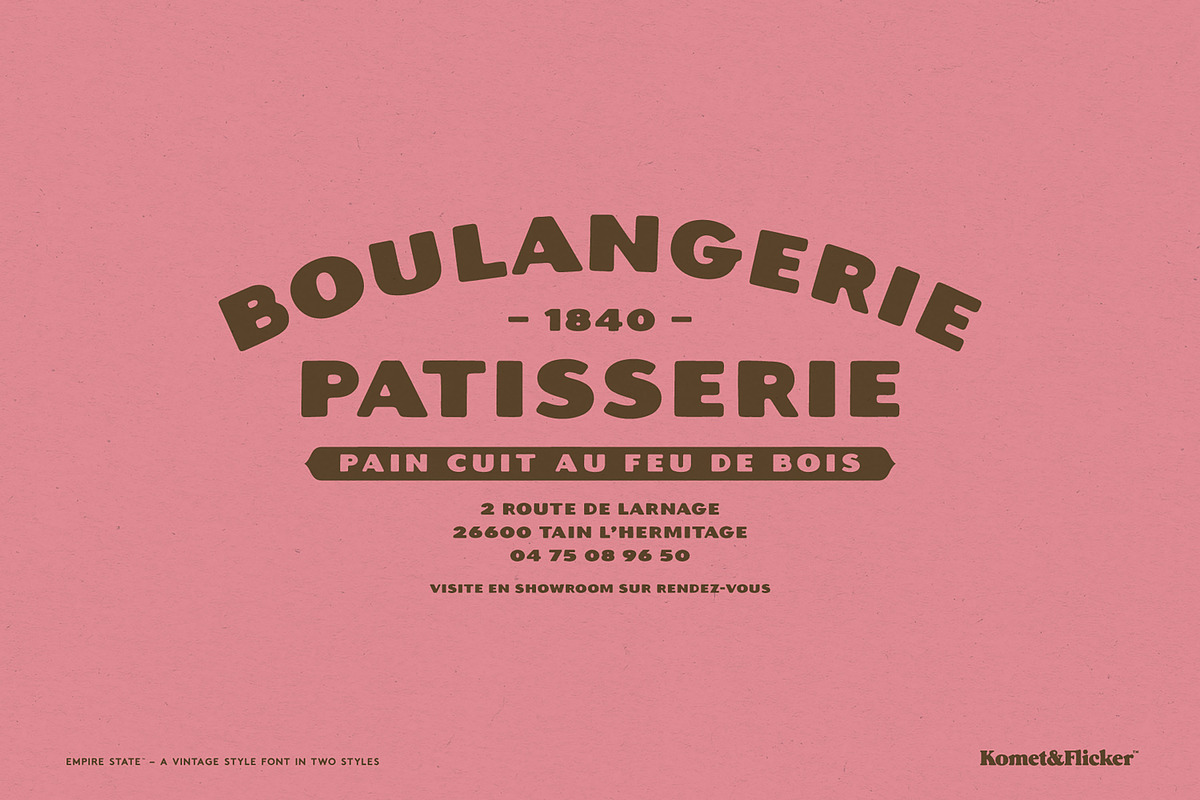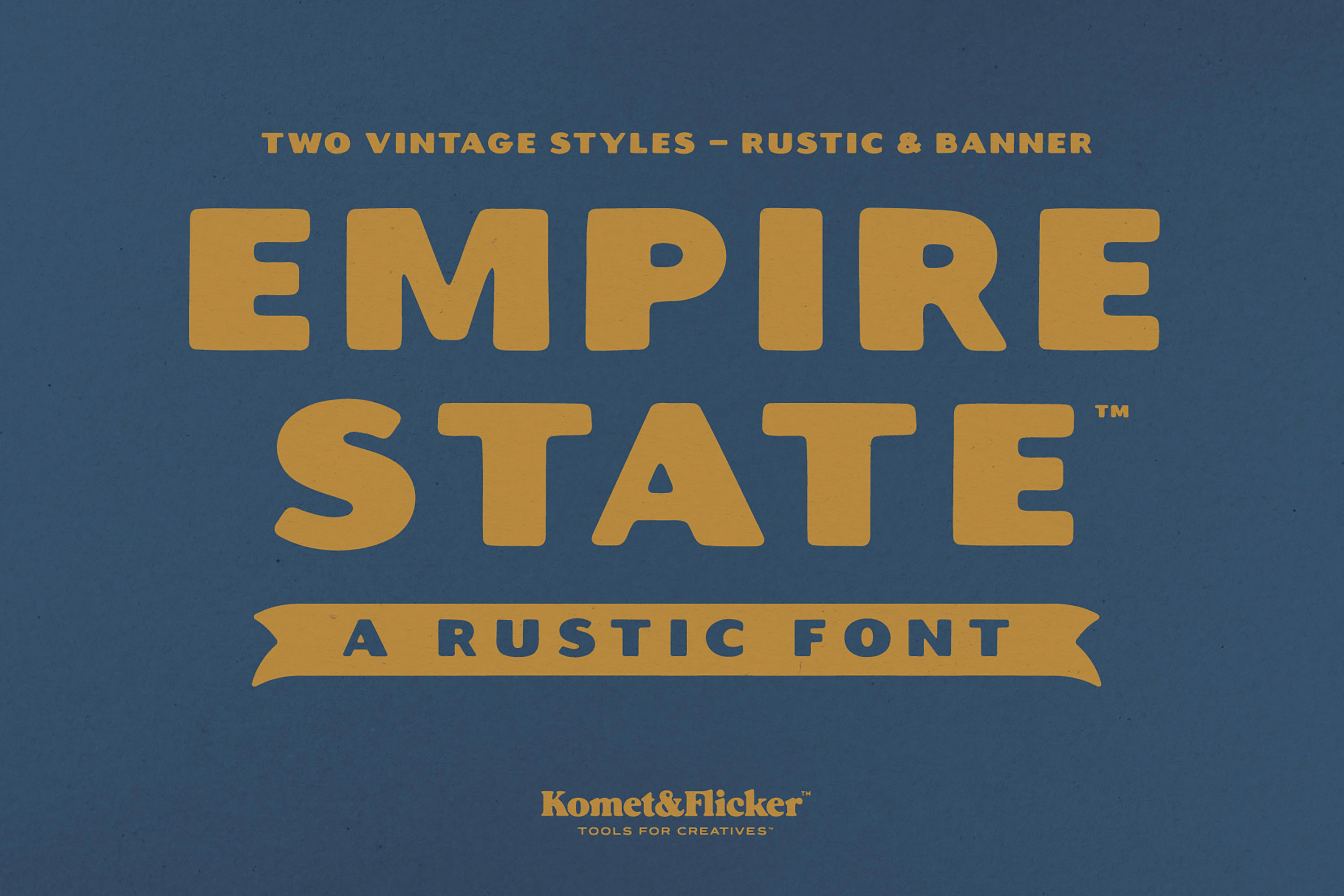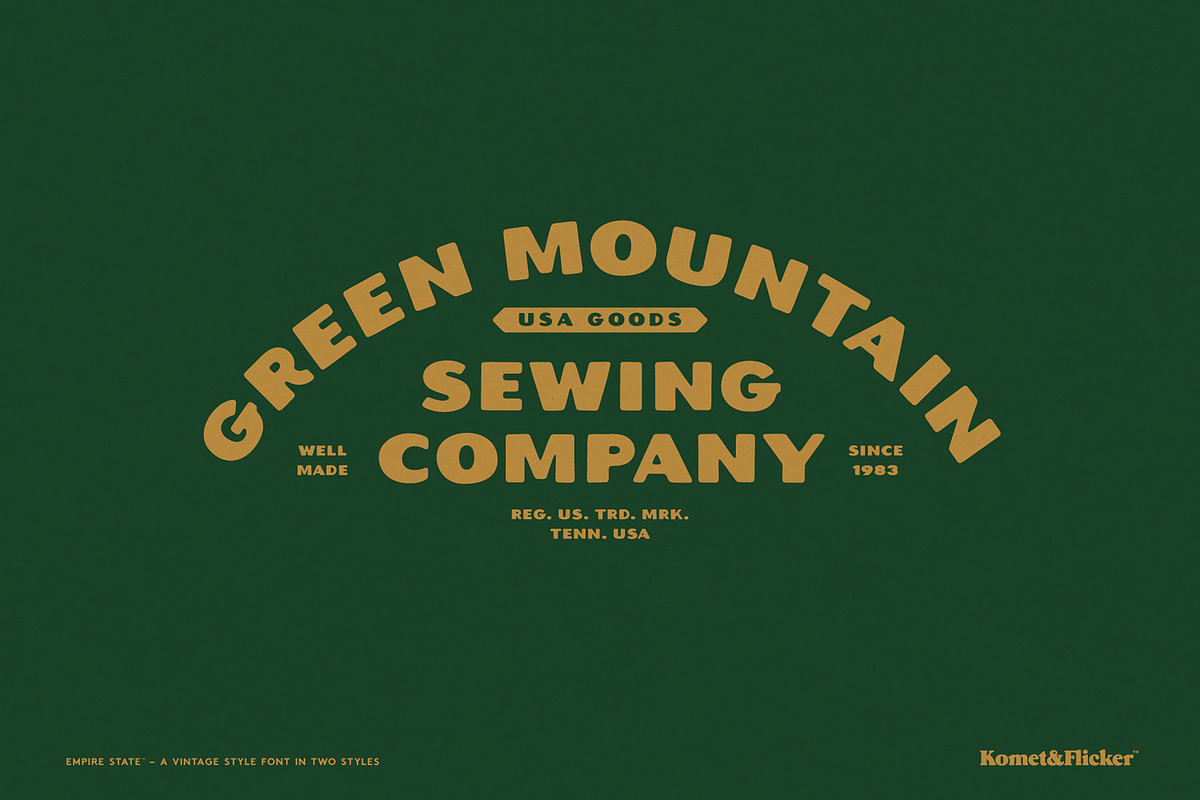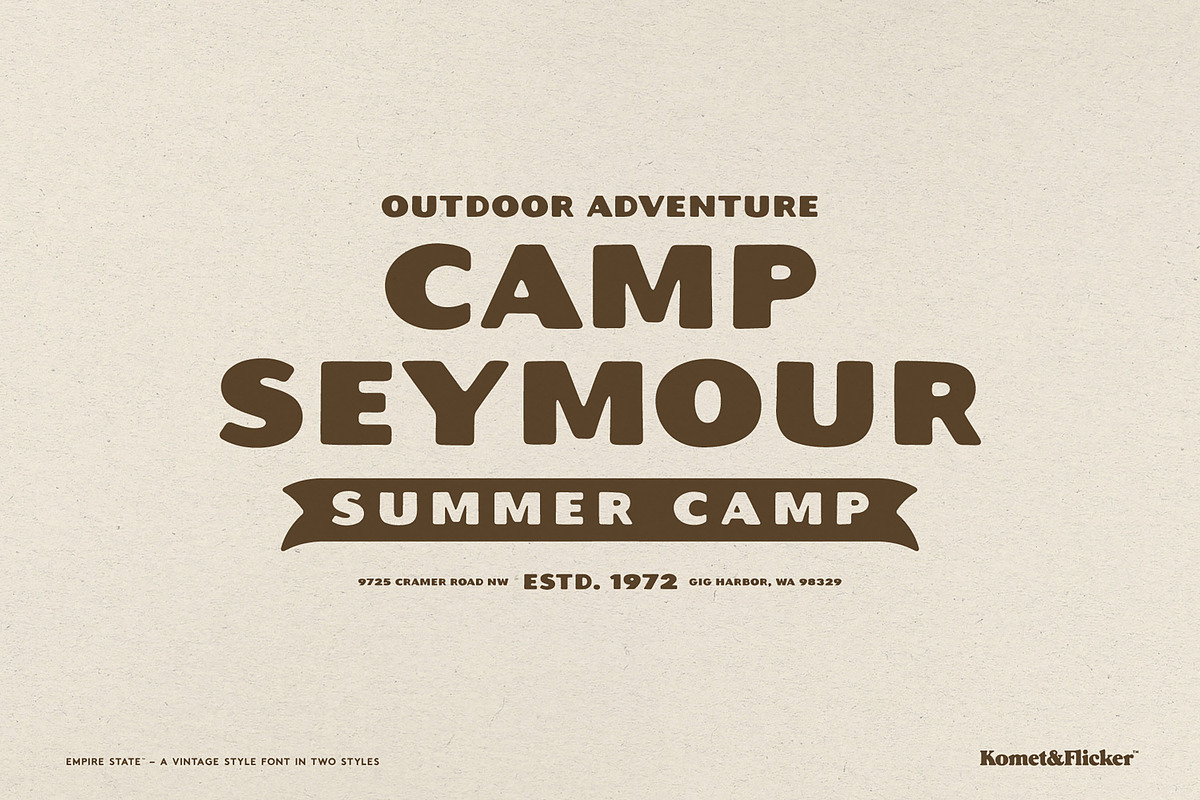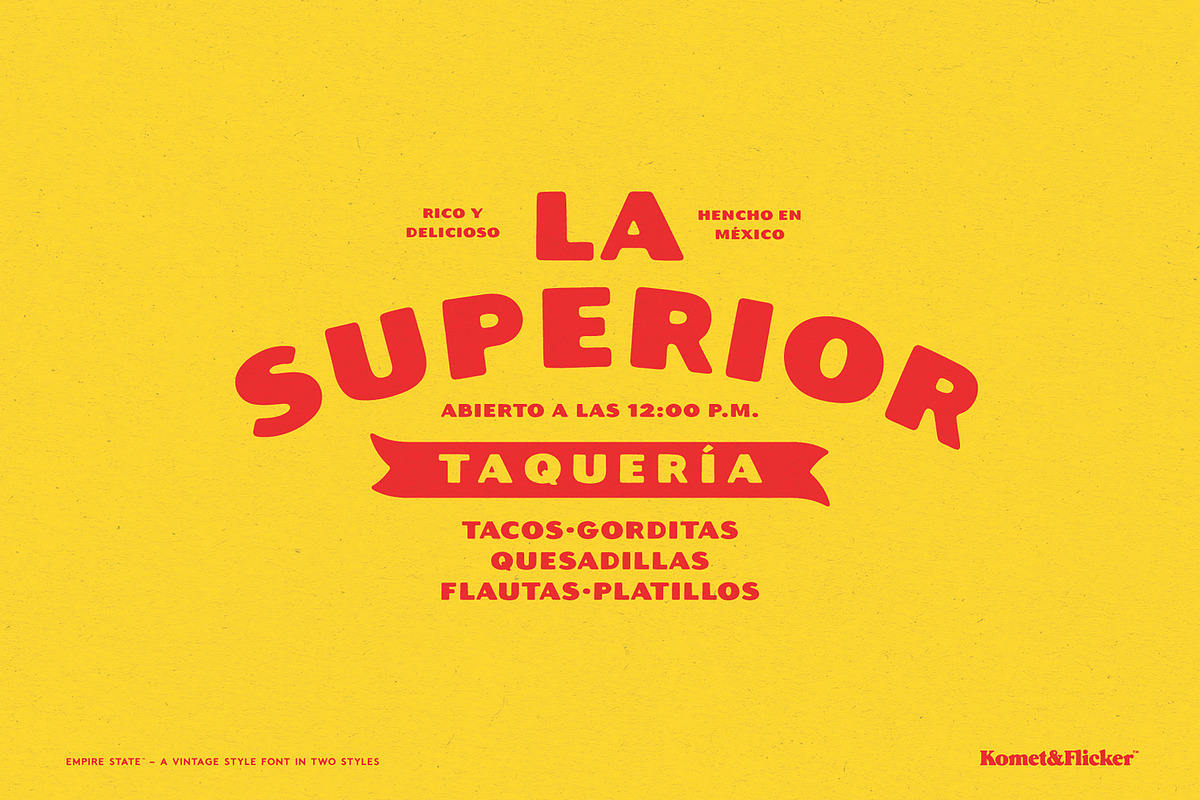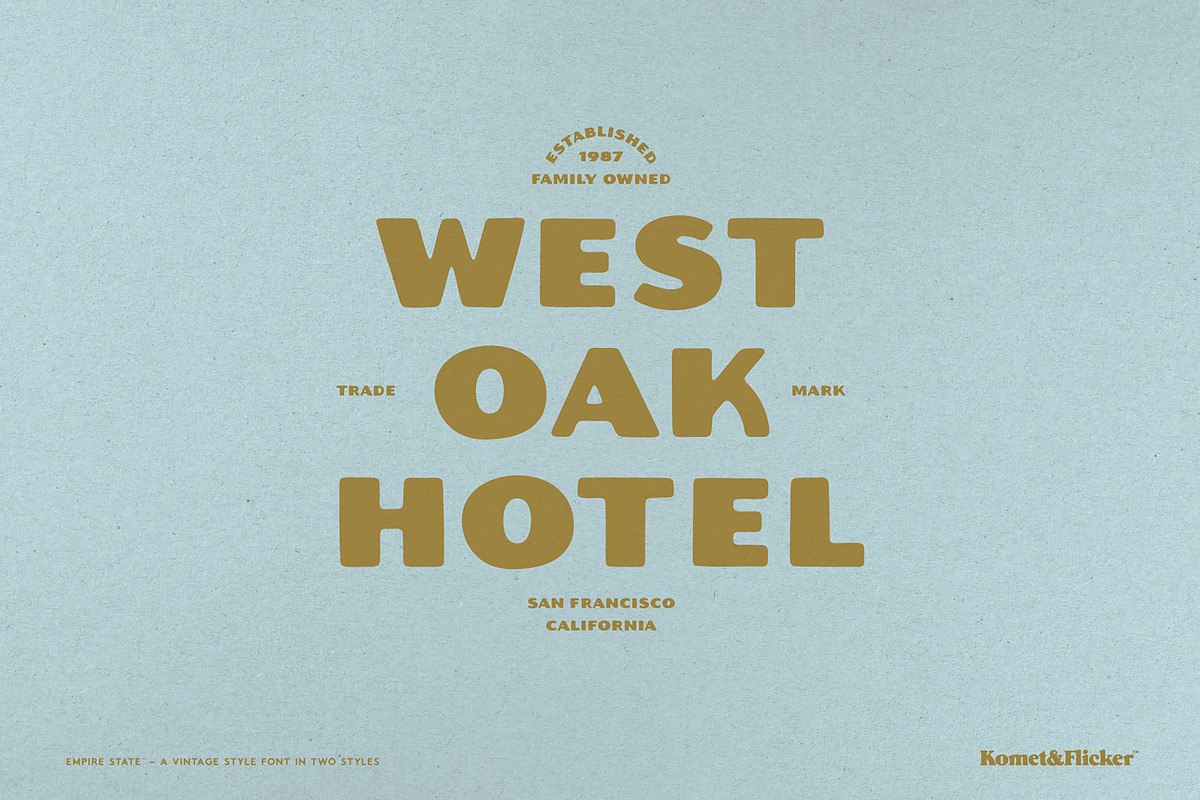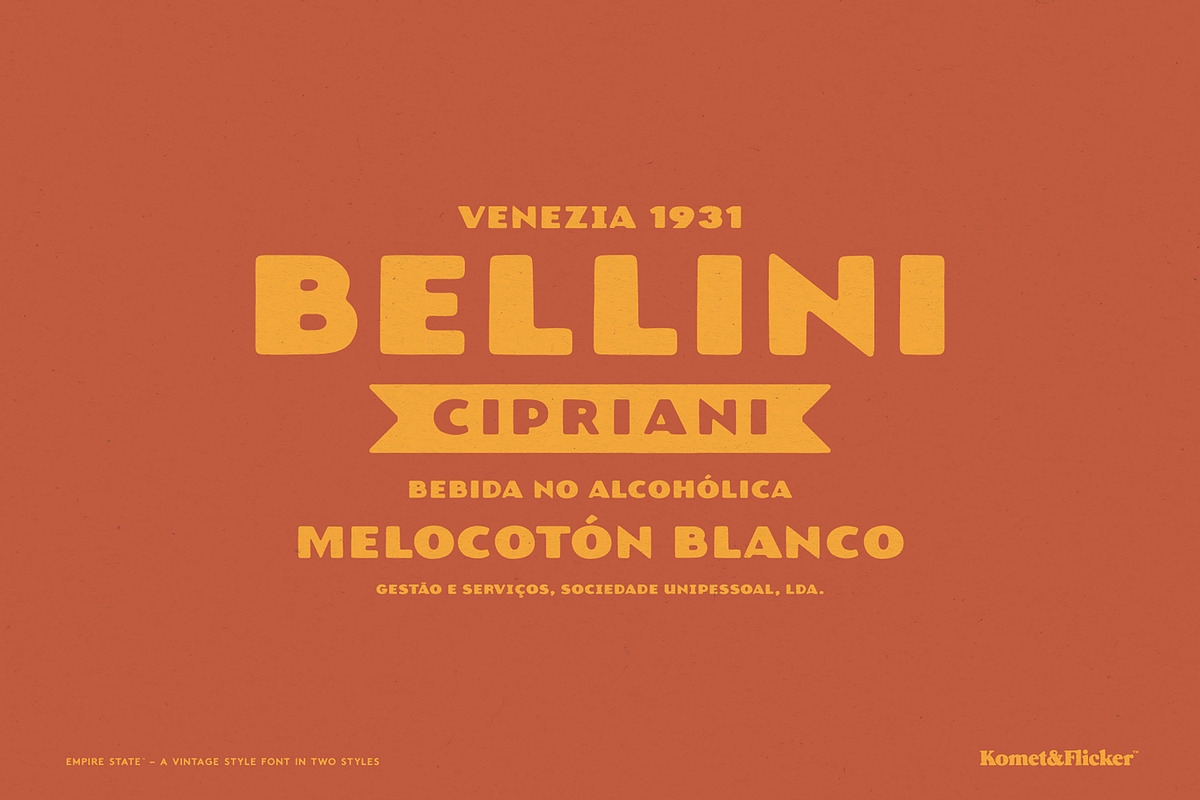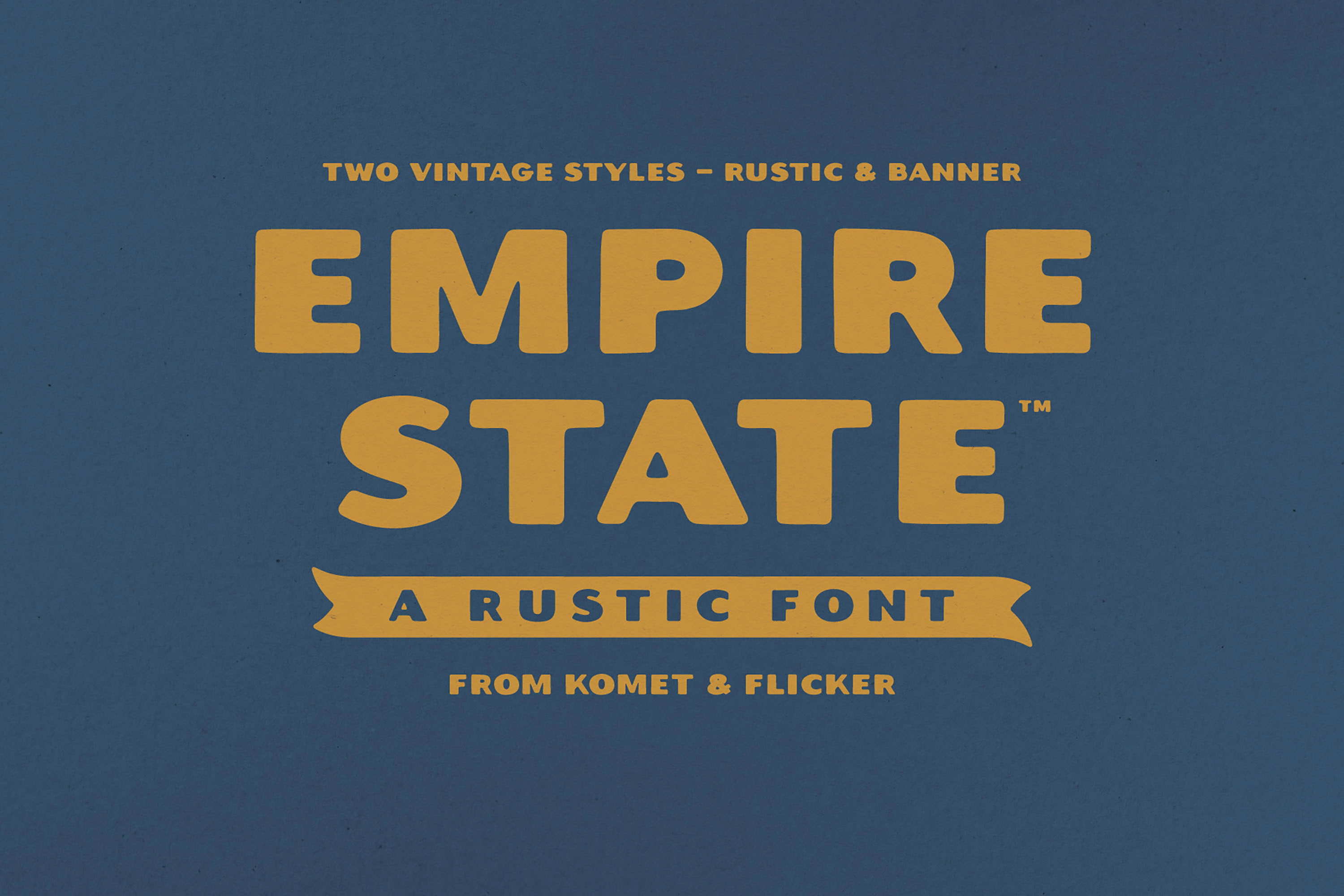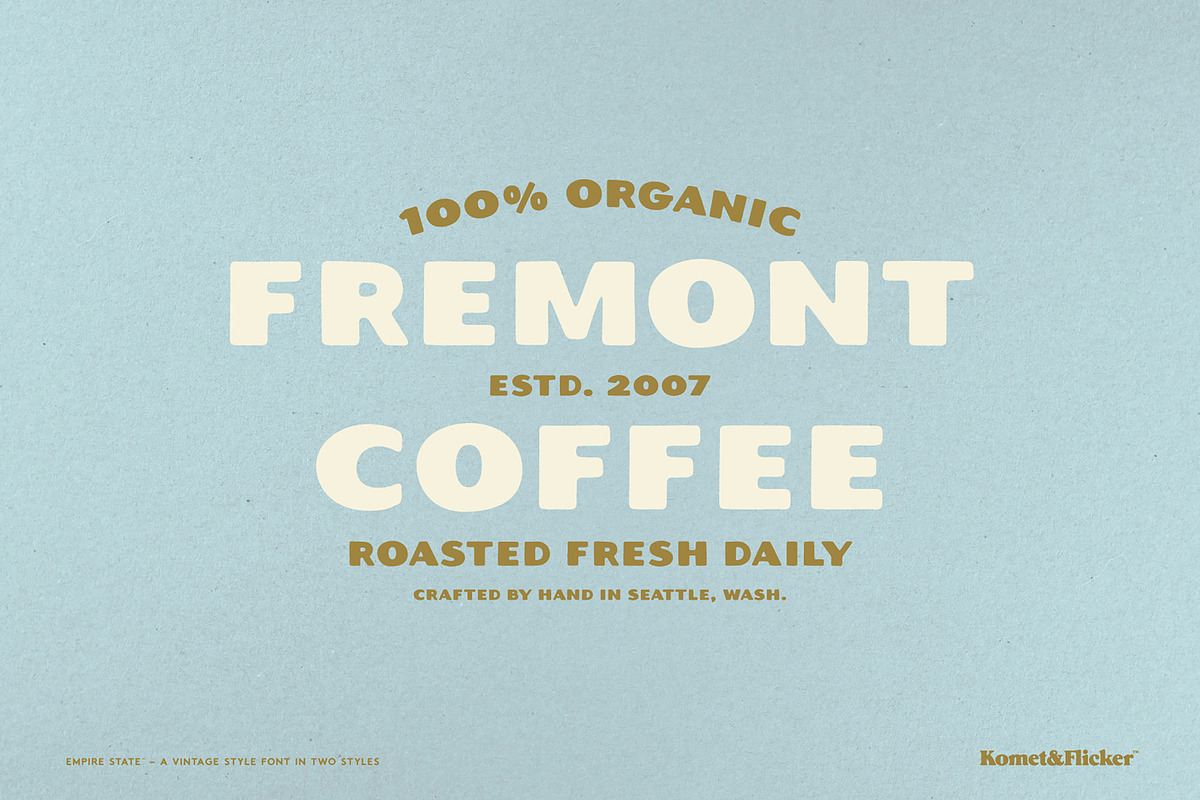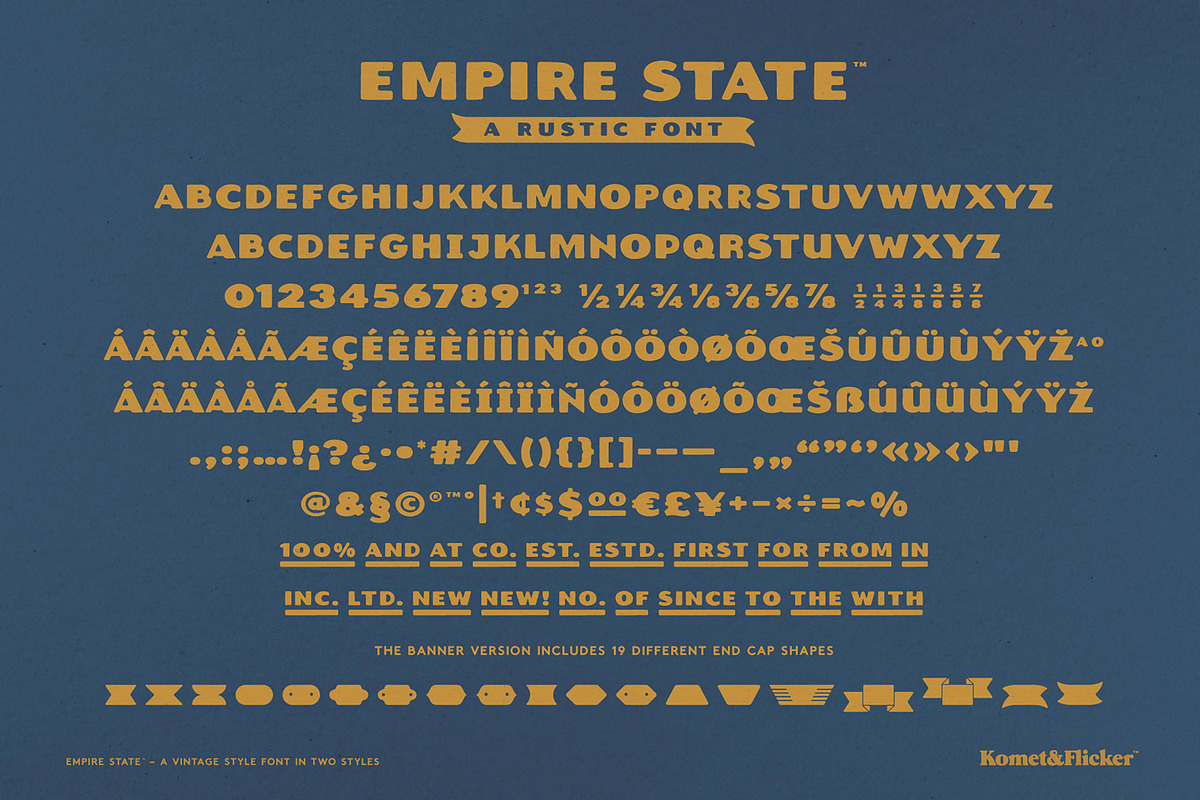
Empire State – A Rustic Font
Empire State is a rustic, vintage-inspired all caps typeface with a well-worn charm that lends a sense of authenticity to your designs. Perfectly imperfect, its rugged hand-drawn characters makes it ideal for branding, packaging, signage, and any project that calls for a timeless handcrafted feel.
The font comes in two versatile styles: Rustic, with its weathered letterforms that capture the spirit of old print and hand-painted signs, and Banner, a unique style that lets you create custom text banners on the fly. With 19 different banner end shapes, you can mix and match to build tailor-made headers and accents that stand out with bold personality.
And to elevate your creative work even further, Empire State includes a special set of 20 custom connecting words. Mix and match these additions to enhance the flow of your typography, ensuring that your designs feel cohesive and polished.
THIS FONT COMES IN TWO STYLES
Empire State Rustic
Empire State Banner
THIS FONT INCLUDES
Full A-Z uppercase basic latin characters
Select European specific characters
Numbers, punctuation, and select symbols
Two styles of pre-made common fractions
Set of 20 custom connecting word glyphs